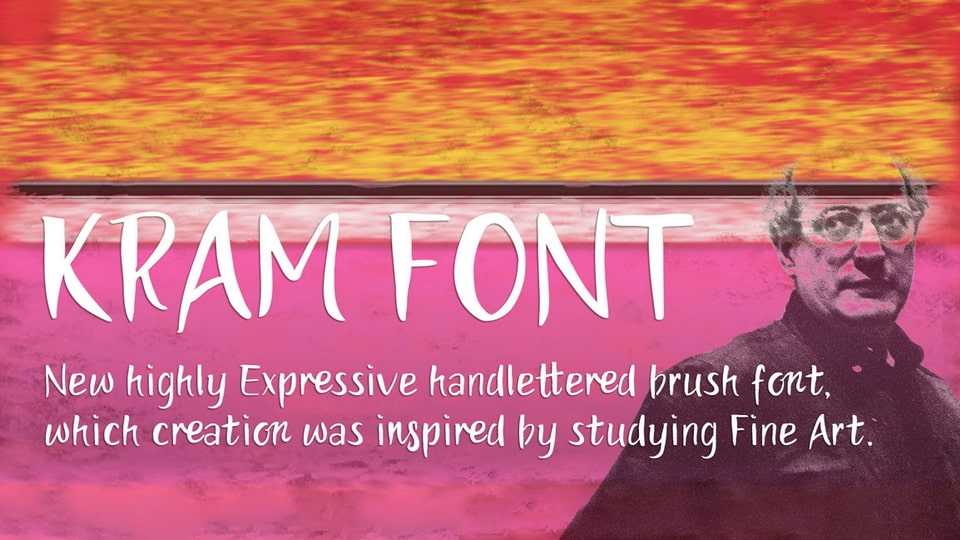
Download KraM font, a highly expressive hand lettered brush typeface, which creation was inspired by studying Fine Art. So it could be utilized to emphasize emotions, passion and excitement.
Designer: Ksenia Semirova